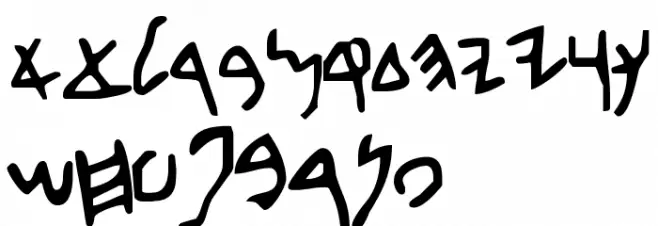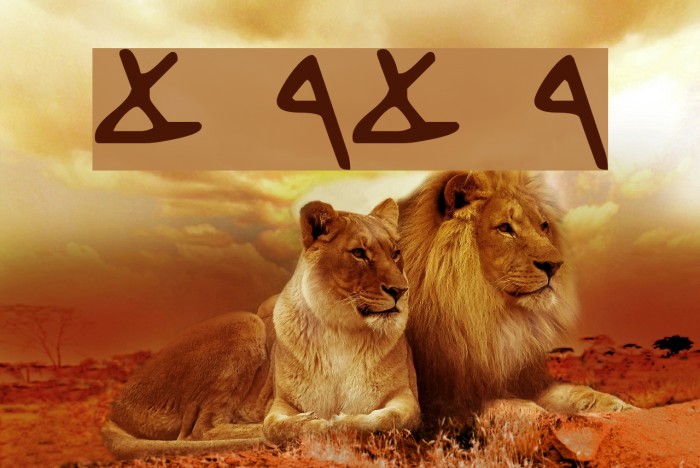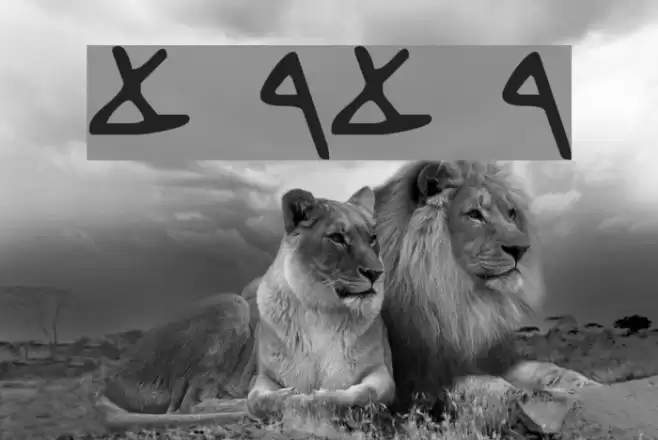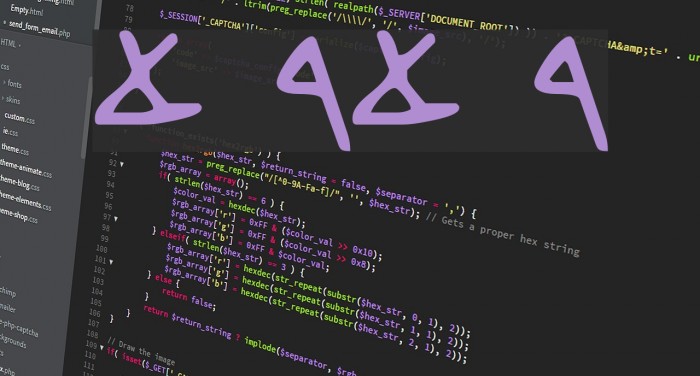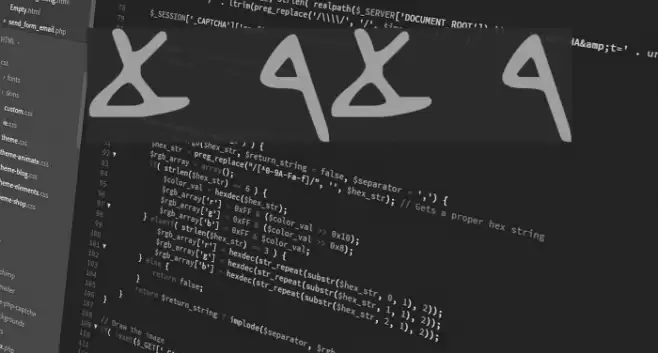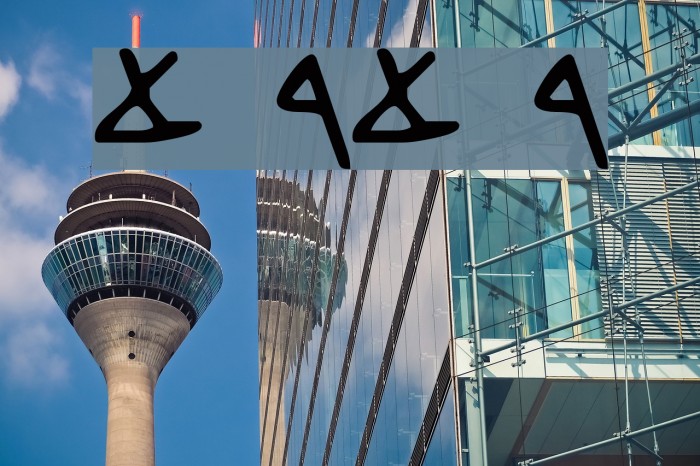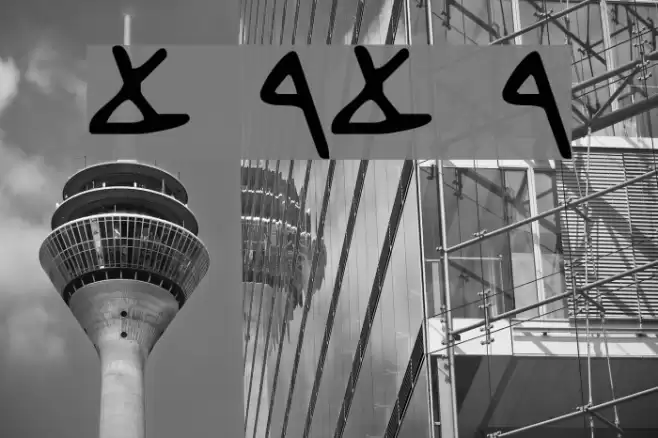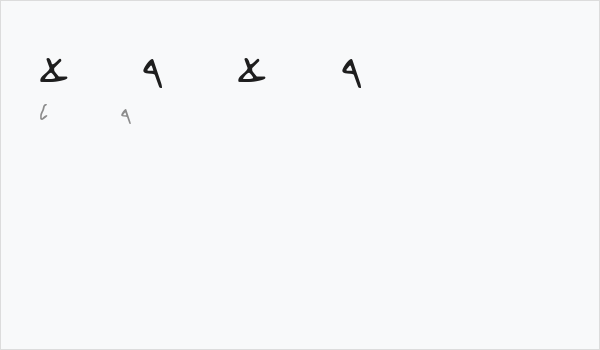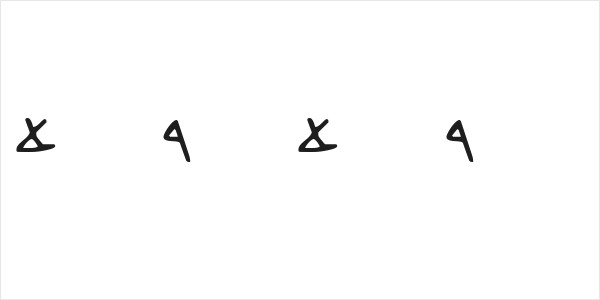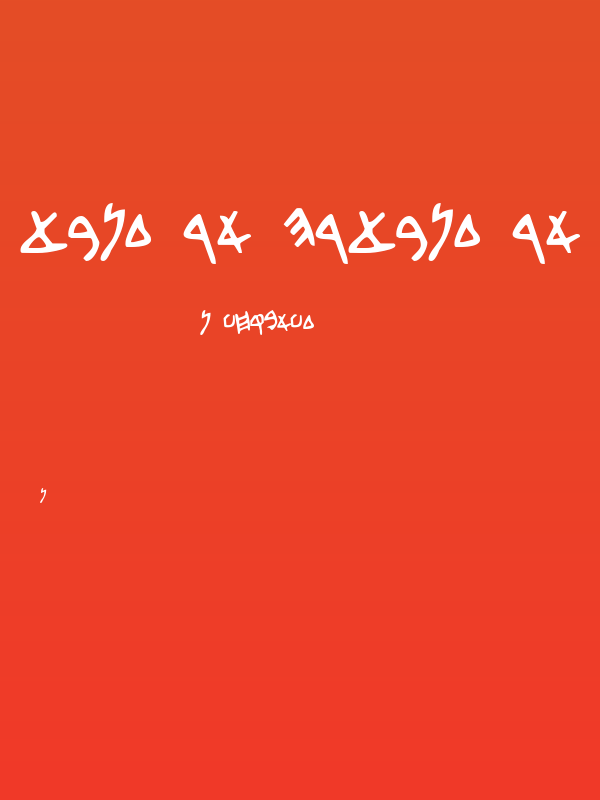
Beth David Font
Beth David Description
This script features a unique, handwritten style with a distinctively organic and flowing appearance. The characters are bold and slightly irregular, giving them a dynamic and expressive quality. The strokes vary in thickness, adding to the overall artistic feel of the script. The letters are closely spaced, creating a sense of continuity and movement across the text. This font's style is reminiscent of ancient scripts, offering a historical and cultural depth. The overall aesthetic is both rustic and sophisticated, making it suitable for projects that require a touch of authenticity and personal expression.
| Overall Style | Rustic, Artistic |
| Proposed Projects | Ideal for artistic projects, cultural or historical themes, personal branding, and creative invitations. |